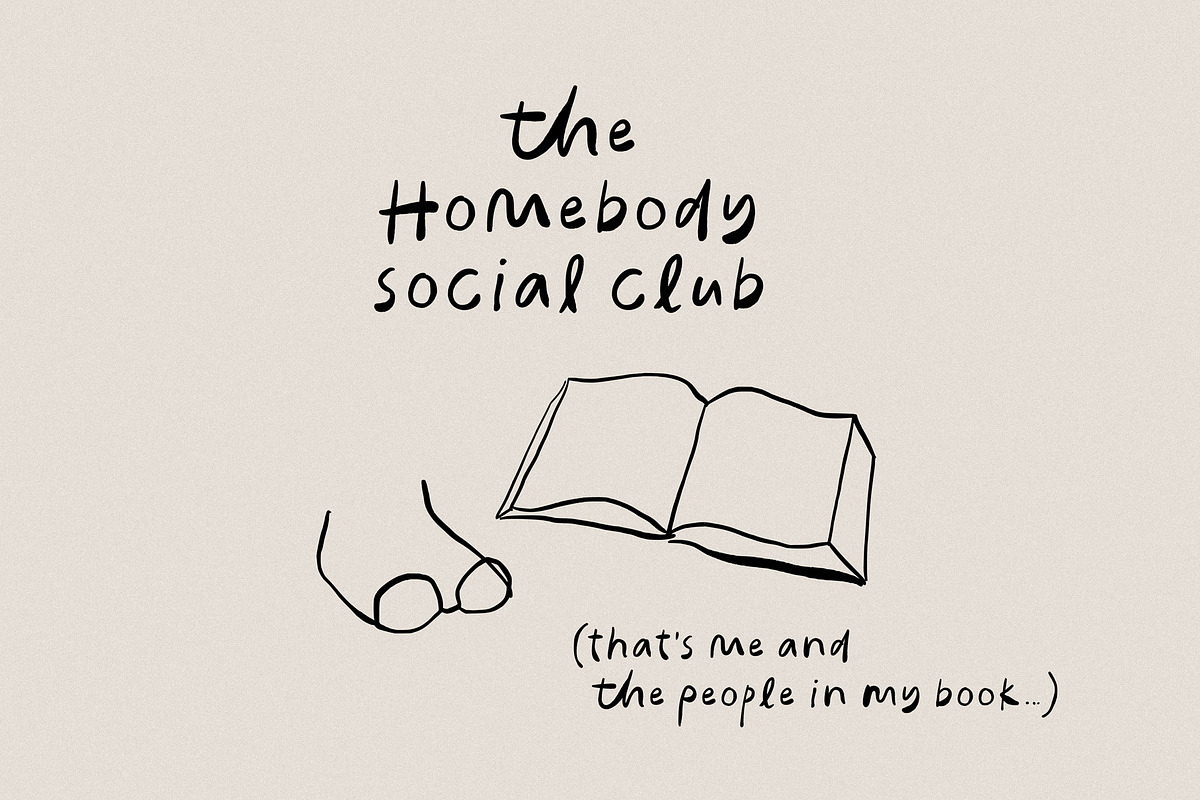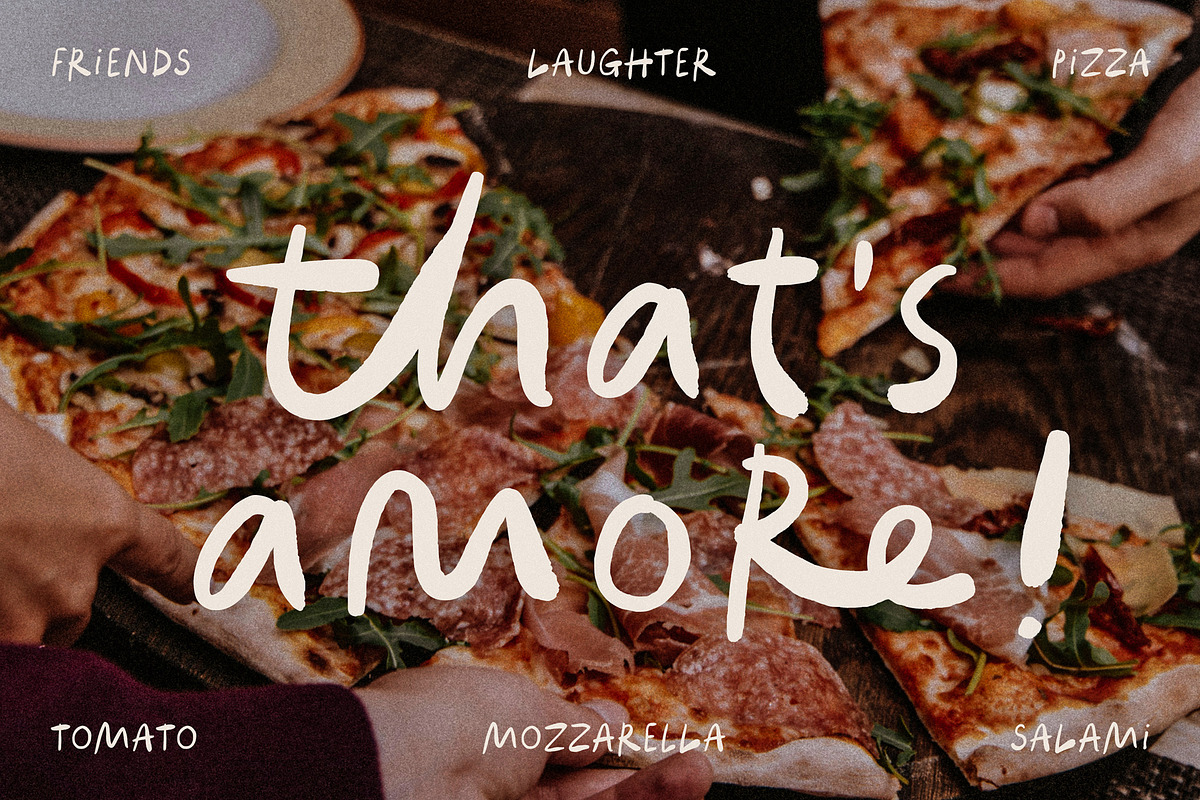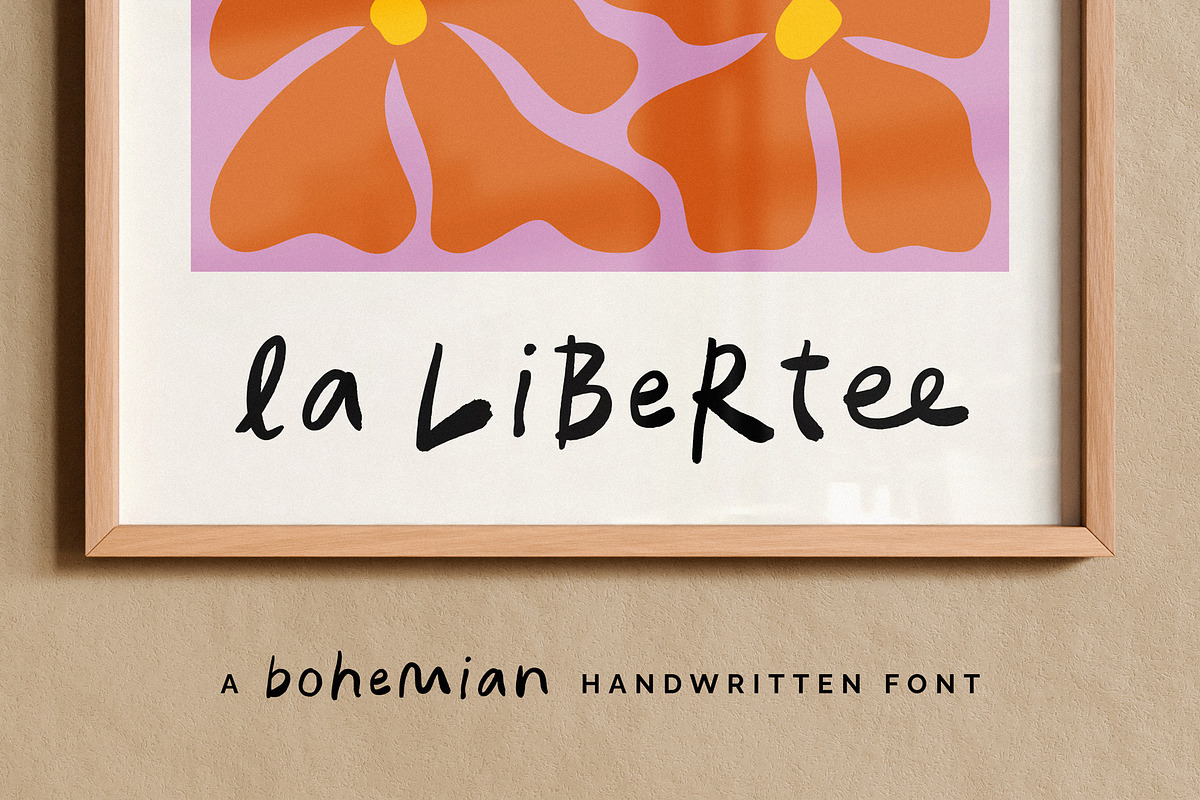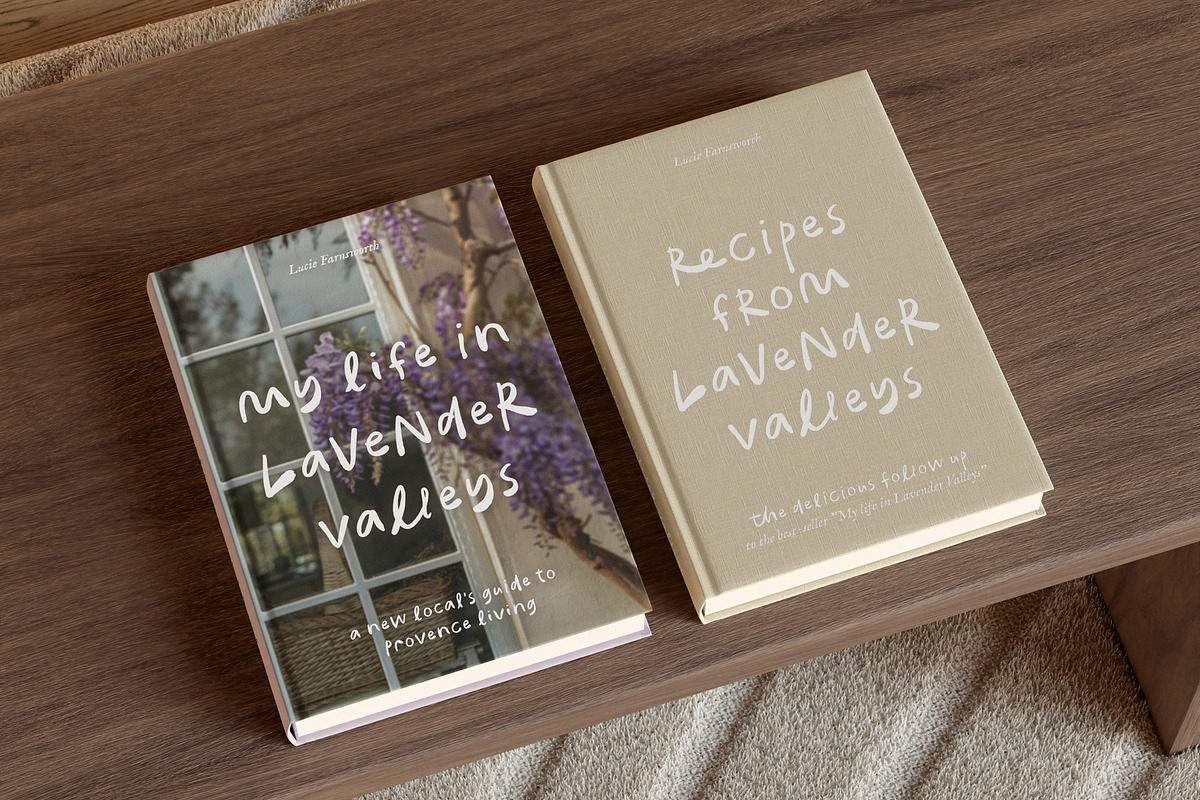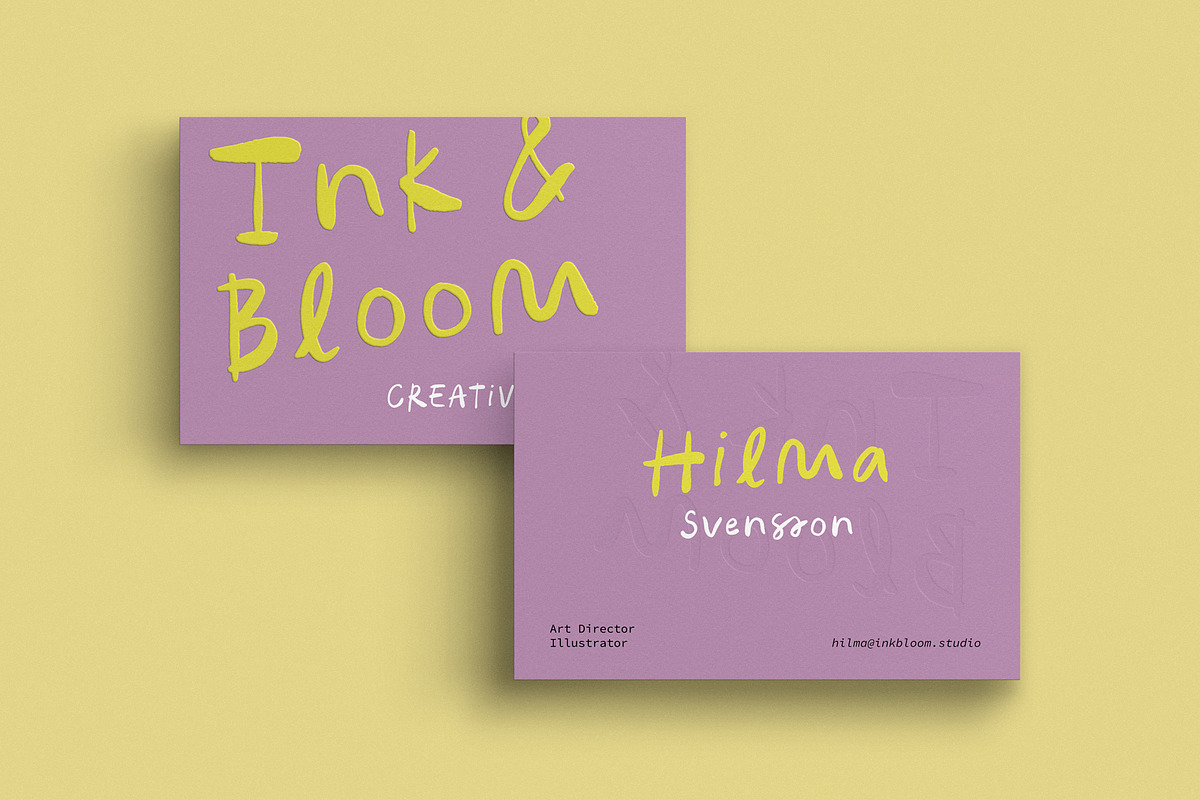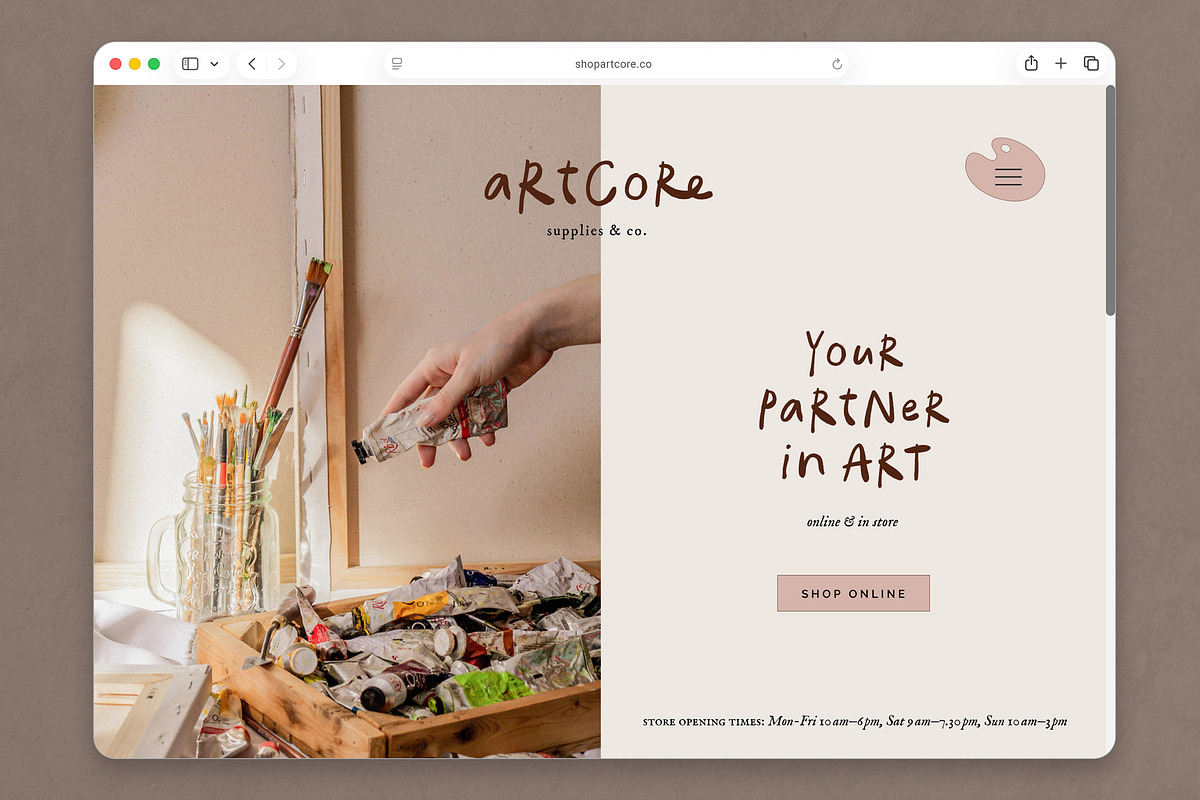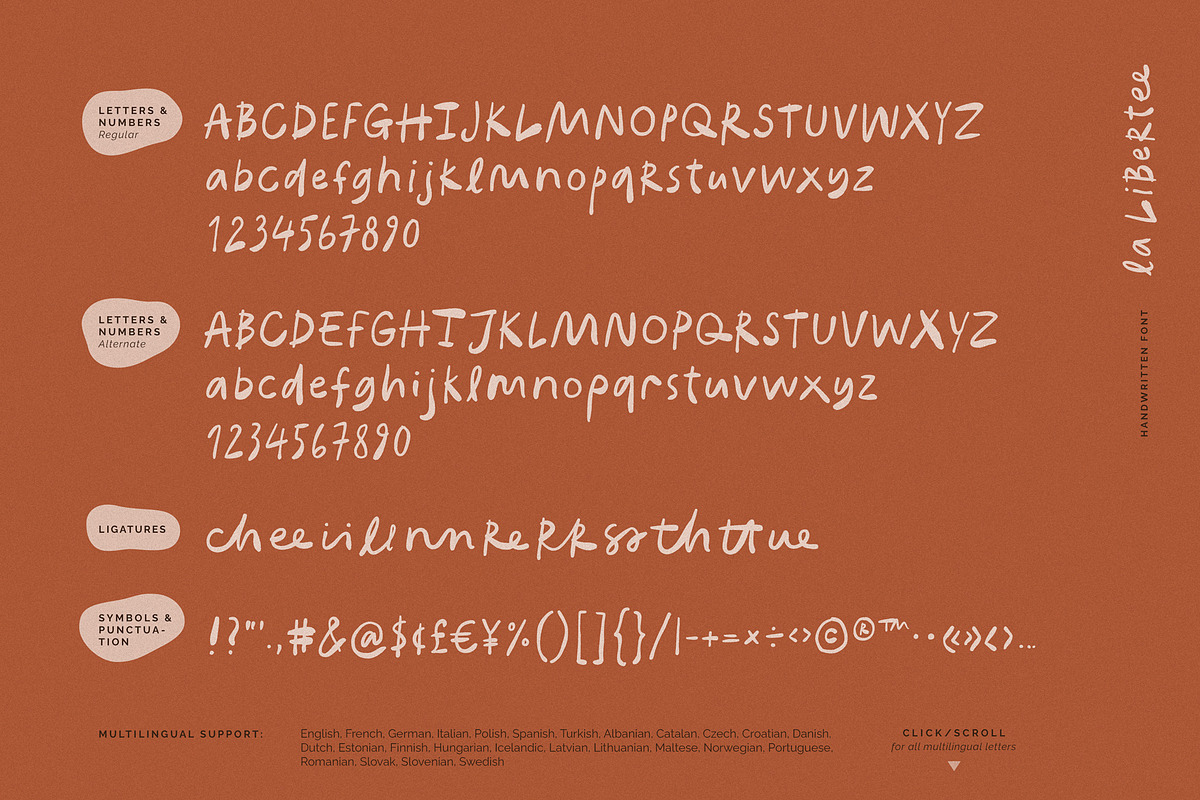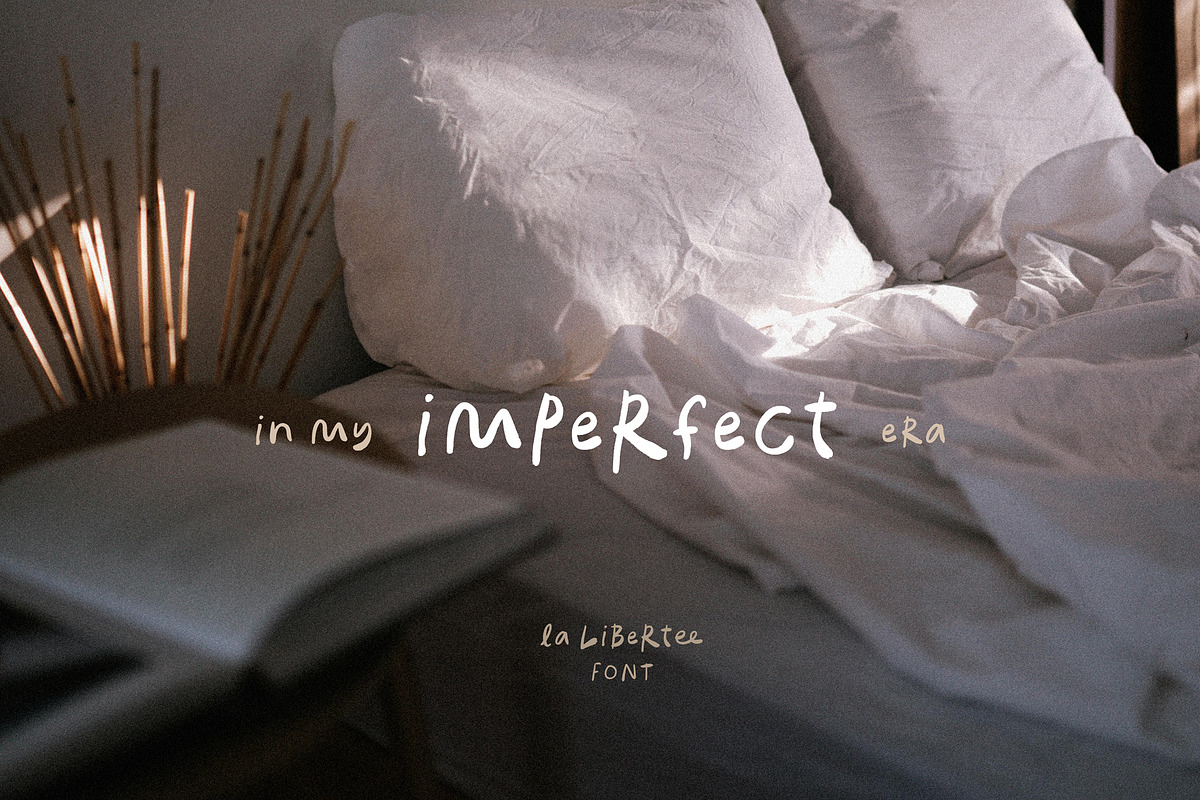
La Libertee handwritten font
Perfect is boring! Break free from the conventional with La Libertee, a messy handwritten font ideal for creating an artistic, handcrafted vibe for your brand. This font is intentionally imperfect and irregular, with naturally textured outlines for an authentic inky brush look.
La Libertee comes with 2 different sets of lowercase and uppercase letters, as well as numbers. I didn't feel like a huge number of ligatures suited this font, but 11 carefully selected ligatures add just the perfect amount of variation. You can also take the creative freedom to mix lowercase and uppercase letters for an even more carefree and irregular look!
Multilingual support: English, French, German, Italian, Polish, Spanish, Turkish, Albanian, Catalan, Czech, Croatian, Danish, Dutch, Estonian, Finnish, Hungarian, Icelandic, Latvian, Lithuanian, Maltese, Norwegian, Portuguese, Romanian, Slovak, Slovenian, Swedish